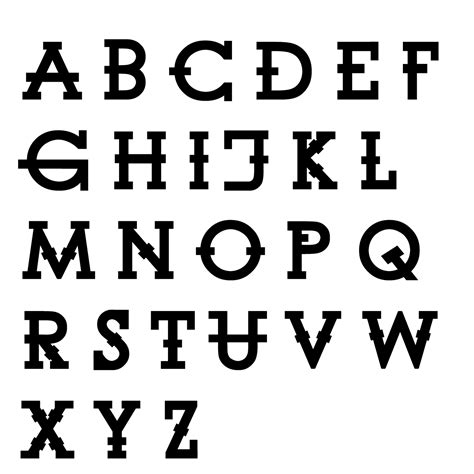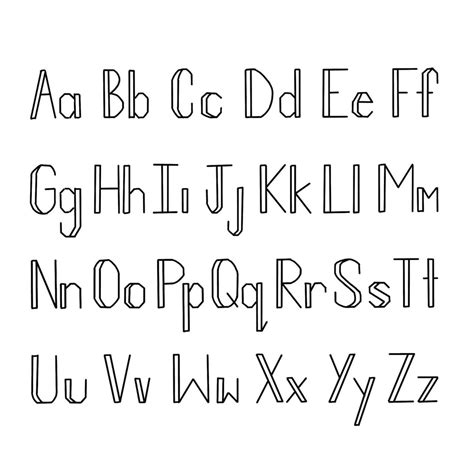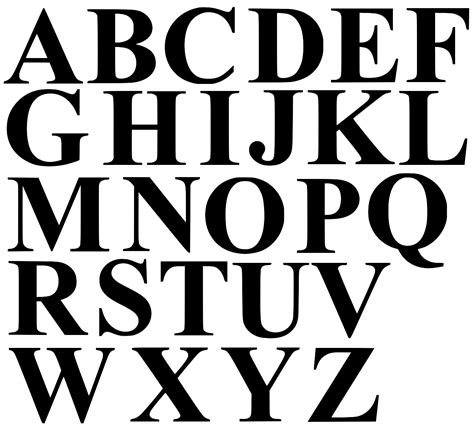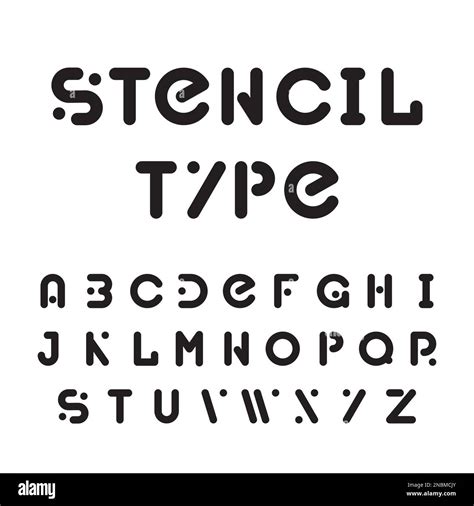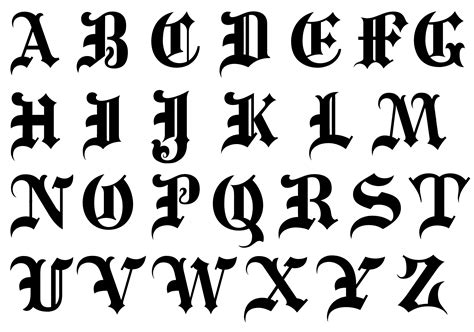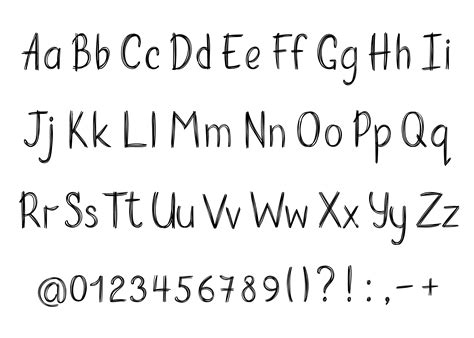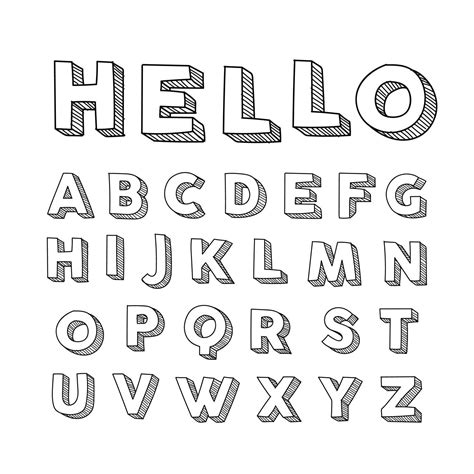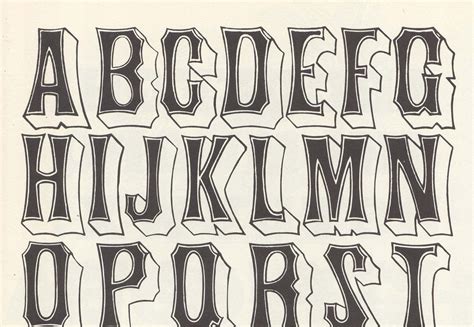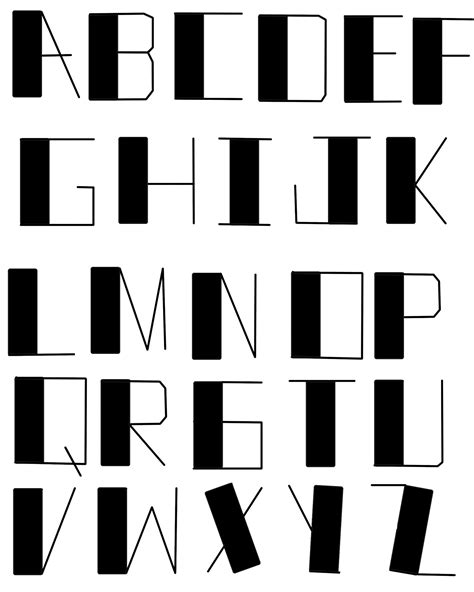
Typography is an essential aspect of design that can significantly impact the overall aesthetic and readability of a project. Whether you're working on a website, a print publication, or any other form of visual media, choosing the right fonts can make all the difference. One of the most exciting trends in typography today is the use of Cool Fonts Abc. These fonts not only add a unique touch to your designs but also enhance the visual appeal and readability. In this post, we will explore the world of Cool Fonts Abc, their benefits, and how to effectively use them in your projects.
What are Cool Fonts Abc?
Cool Fonts Abc refer to a diverse range of fonts that are designed to be visually appealing and unique. These fonts can range from playful and whimsical to sleek and modern, offering a wide variety of styles to suit different design needs. Whether you’re looking to create a fun and engaging design or a professional and sophisticated one, Cool Fonts Abc provide the flexibility to achieve your desired look.
Benefits of Using Cool Fonts Abc
Using Cool Fonts Abc in your designs offers several benefits:
- Enhanced Visual Appeal: Cool Fonts Abc can make your designs stand out by adding a unique and eye-catching element.
- Improved Readability: Many Cool Fonts Abc are designed with readability in mind, ensuring that your content is easy to read and understand.
- Versatility: With a wide range of styles available, Cool Fonts Abc can be used in various projects, from websites and logos to print materials and digital media.
- Brand Differentiation: Using unique and Cool Fonts Abc can help your brand stand out from the competition, making a lasting impression on your audience.
Types of Cool Fonts Abc
Cool Fonts Abc come in various styles, each with its own unique characteristics. Here are some of the most popular types:
- Script Fonts: These fonts mimic handwriting and calligraphy, adding a personal and elegant touch to your designs.
- Serif Fonts: Known for their small decorative strokes at the ends of letters, serif fonts are often used in print media for their readability.
- Sans-Serif Fonts: These fonts lack the decorative strokes of serif fonts, giving them a clean and modern look. They are commonly used in digital media.
- Display Fonts: Designed for large sizes, display fonts are often used in headlines and logos to grab attention.
- Monospaced Fonts: Each character in these fonts takes up the same amount of horizontal space, making them ideal for coding and technical documents.
How to Choose the Right Cool Fonts Abc
Selecting the right Cool Fonts Abc for your project involves considering several factors:
- Purpose: Determine the purpose of your design. Is it for a website, a logo, a print publication, or something else? The purpose will guide your font choice.
- Audience: Consider your target audience. Different fonts appeal to different demographics, so choose one that resonates with your audience.
- Readability: Ensure that the font you choose is easy to read, especially if your design involves a lot of text.
- Brand Identity: Choose a font that aligns with your brand’s identity and values. Consistency in typography helps reinforce your brand.
Popular Cool Fonts Abc
Here are some popular Cool Fonts Abc that you can consider for your next project:
| Font Name | Style | Best Used For |
|---|---|---|
| Lobster | Script | Headlines, logos |
| Montserrat | Sans-Serif | Websites, digital media |
| Playfair Display | Serif | Print media, headlines |
| Pacifico | Script | Headlines, logos |
| Roboto | Sans-Serif | Websites, digital media |
How to Implement Cool Fonts Abc in Your Designs
Implementing Cool Fonts Abc in your designs can be straightforward, depending on the platform you’re using. Here are some general steps to follow:
- Choose Your Font: Select the Cool Fonts Abc that best fits your design needs.
- Download or Embed: Download the font file if you’re working offline, or embed it using a web font service if you’re working online.
- Apply the Font: Apply the font to your text elements using your design software or coding language.
- Adjust Styling: Adjust the size, color, and other styling options to ensure the font looks great in your design.
Best Practices for Using Cool Fonts Abc
To make the most of Cool Fonts Abc, follow these best practices:
- Limit Font Variety: Use no more than two or three different fonts in a single design to avoid overwhelming the viewer.
- Ensure Readability: Always prioritize readability, especially for body text. Choose fonts that are easy to read at various sizes.
- Consistency: Maintain consistency in font usage across your design. This helps create a cohesive and professional look.
- Test on Different Devices: Ensure that your chosen fonts look good on different devices and screen sizes, especially if you’re designing for digital media.